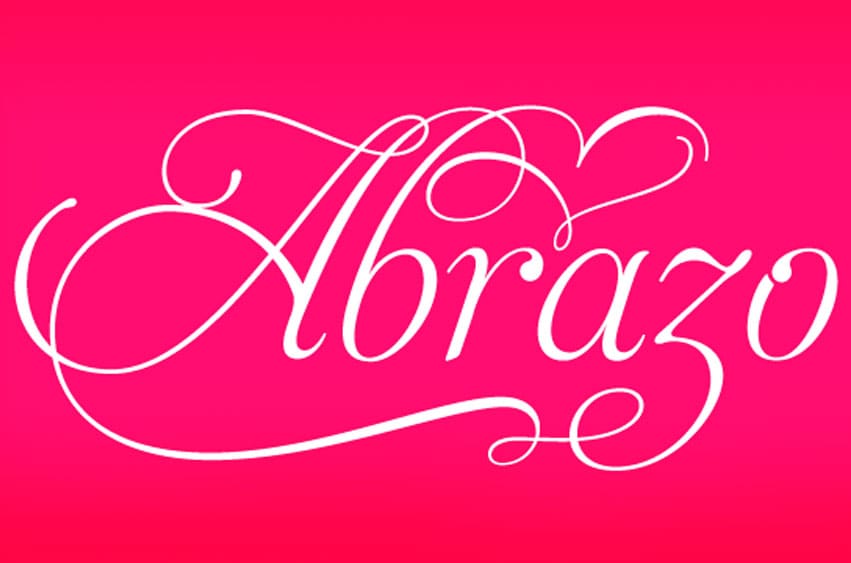
Aphrodite Slim Font Pro, however, is not just a light variant of Aphrodite Pro, it has more than doubled its character count with over 500 new glyphs, which gives an impressive total of over a 1000 characters!
Aphrodite Slim Pro is an exquisite new typeface with refined calligraphic ideas: We made extensive research of each ductus calligraphy and master of calligraphy by consulted all the books on lettering and decoration.